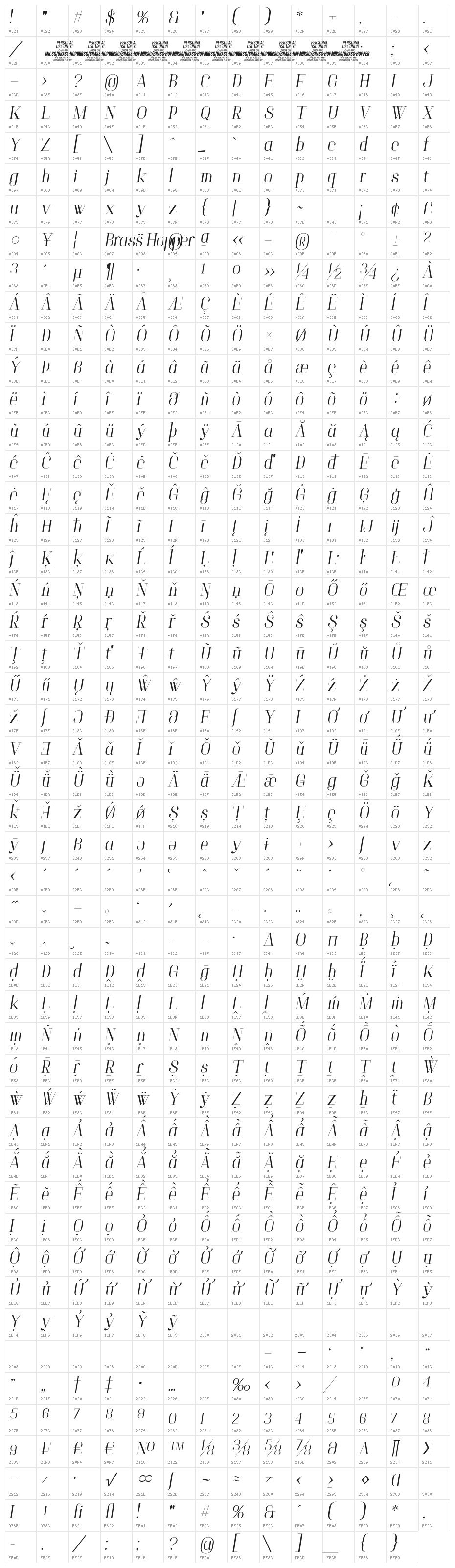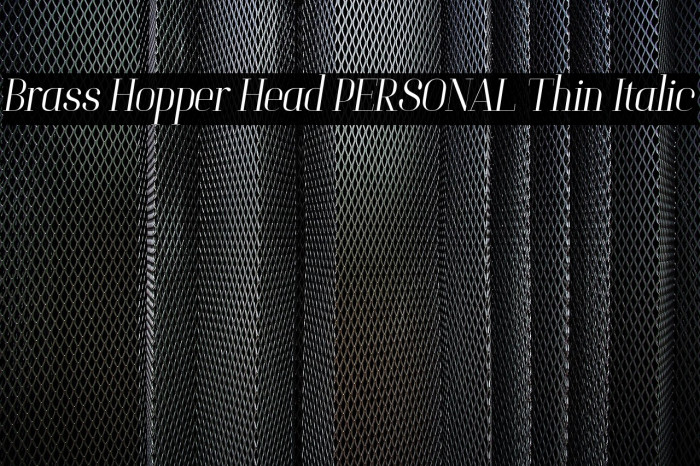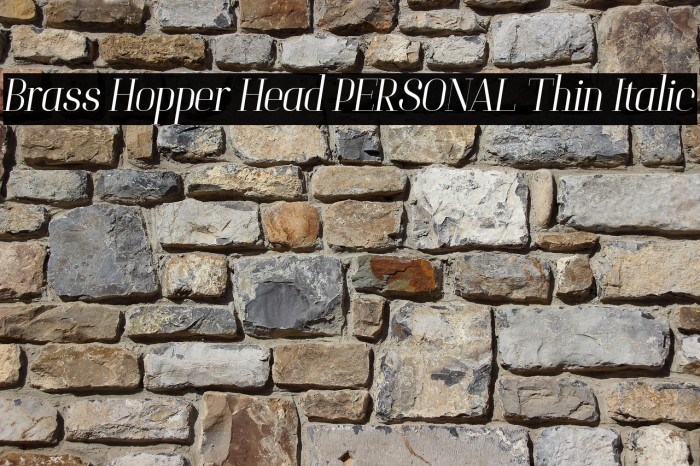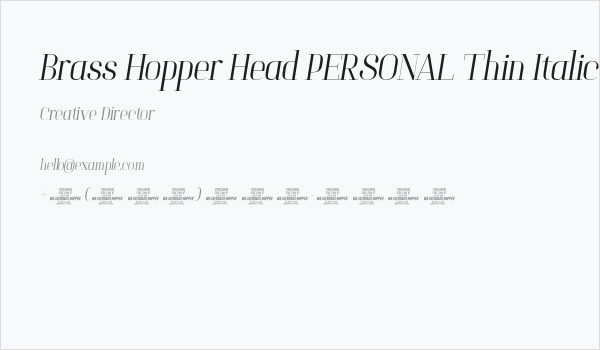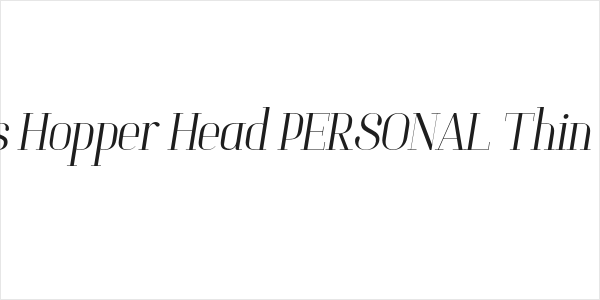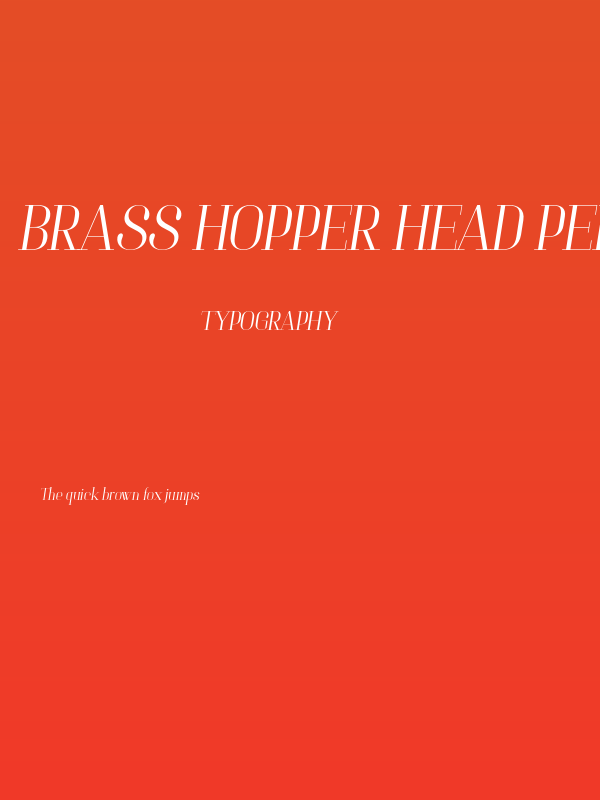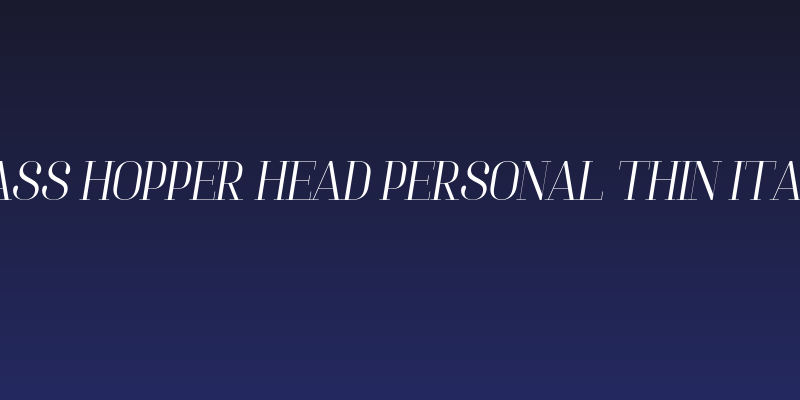
Brass Hopper Head PERSONAL Thin Italic Font
Brass Hopper Head PERSONAL Thin Italic Description
This font exhibits a sleek and elegant design with a thin, italicized style. The characters have a high contrast between thick and thin strokes, giving it a sophisticated and modern appearance. The uppercase letters are tall and narrow, while the lowercase letters maintain a consistent slant, enhancing the italic effect. The numerals and special characters are designed to match the overall aesthetic, with a refined and stylish look. The font's thin strokes and italic nature make it ideal for projects that require a touch of elegance and modernity.
| Proposed Projects | Ideal for fashion magazines, luxury branding, elegant invitations, and modern web design. |